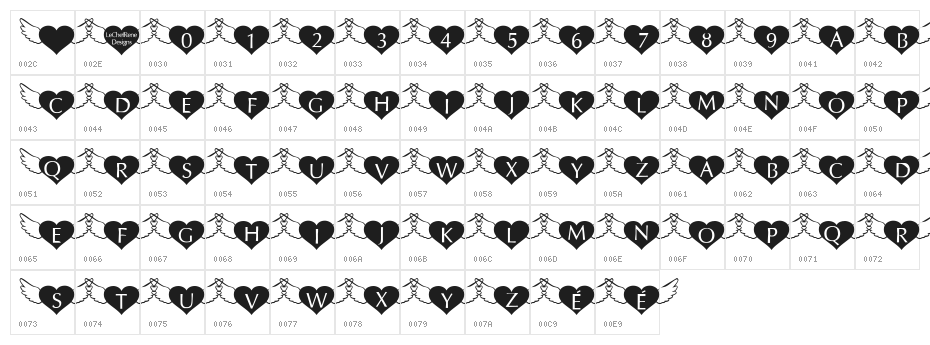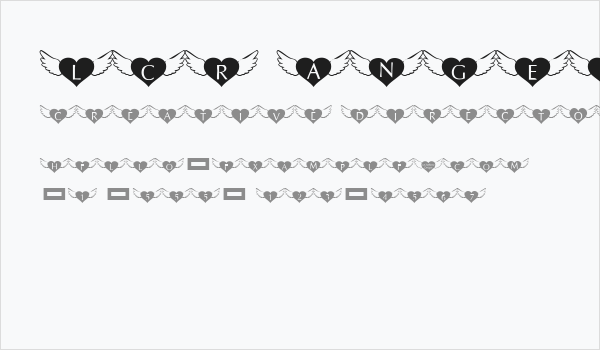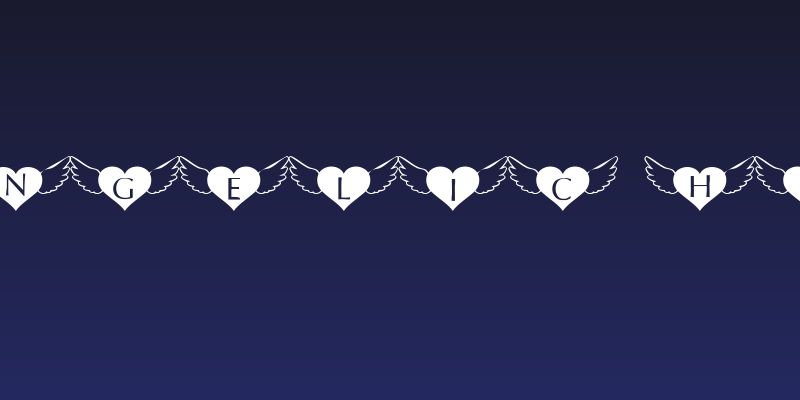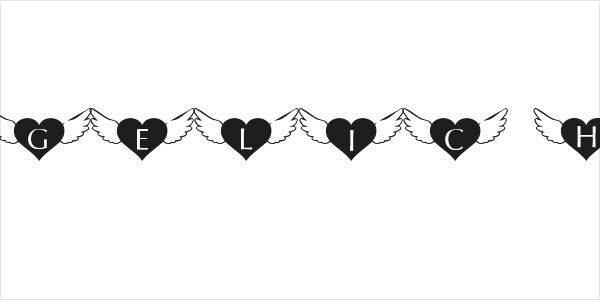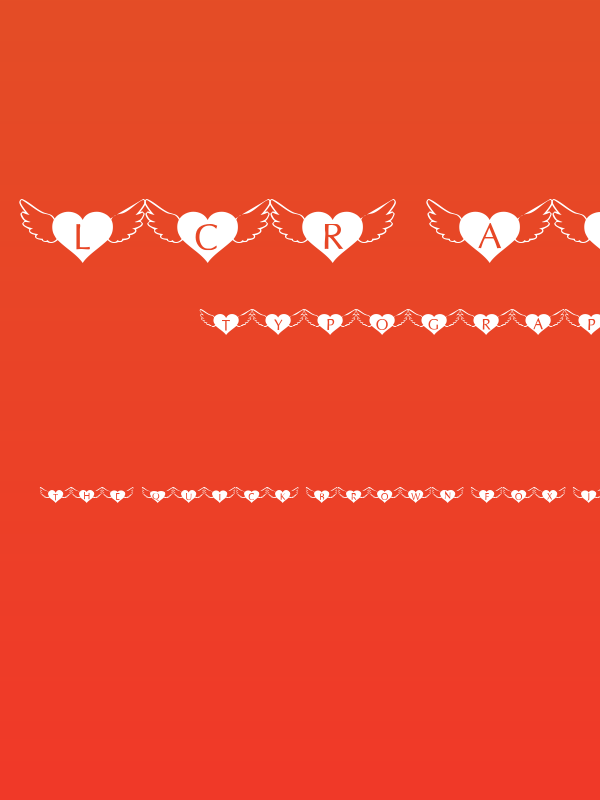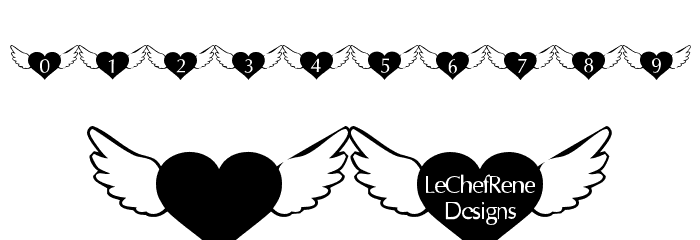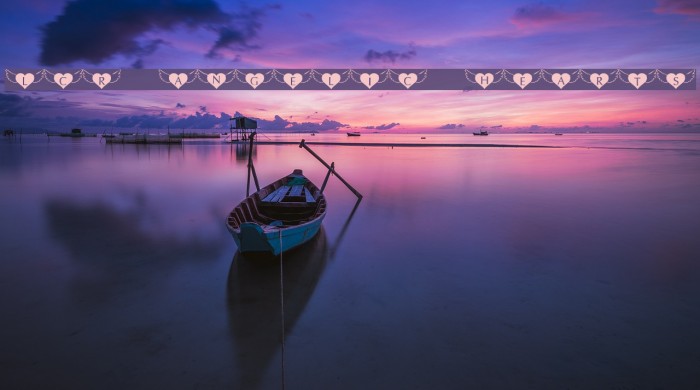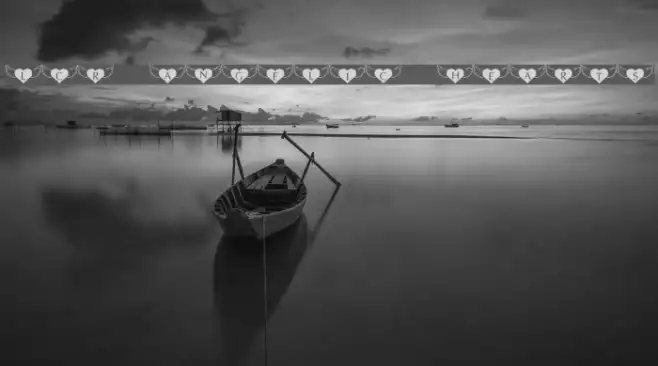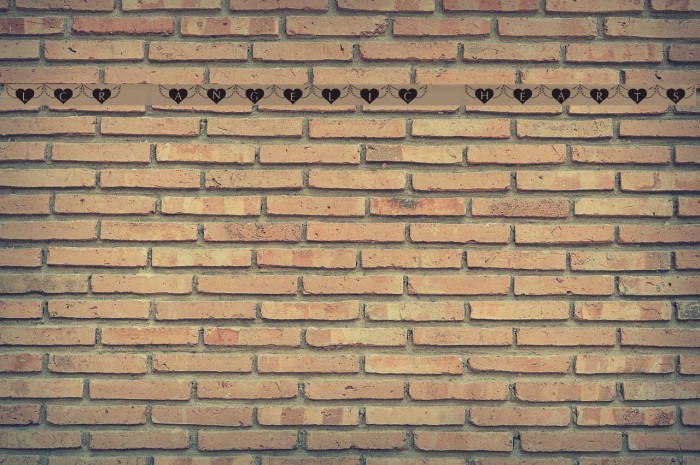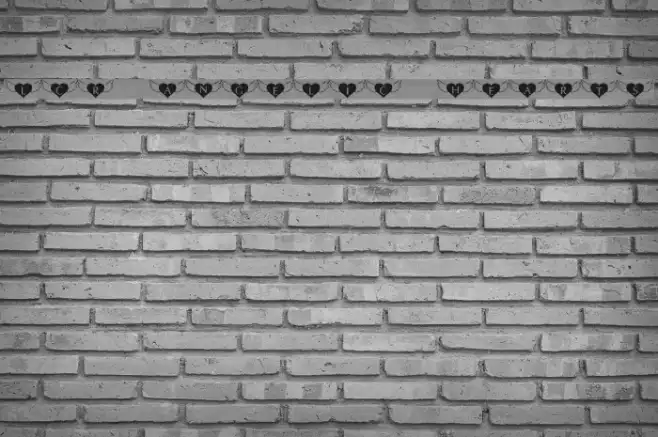
LCR Angelic Hearts Font
LCR Angelic Hearts Description
This decorative font features each character enclosed within a heart shape, adorned with angelic wings on either side. The design is whimsical and playful, making it ideal for projects that require a touch of charm and fantasy. The characters are bold and easily legible, despite the intricate design elements surrounding them. The font includes both uppercase and lowercase letters, numbers, and a selection of special characters, all maintaining the heart-and-wings motif. The consistent use of the heart shape provides a cohesive look across all characters, while the wings add a sense of movement and lightness.
| Proposed Projects | Ideal for greeting cards, children's book covers, playful branding, and decorative posters. |